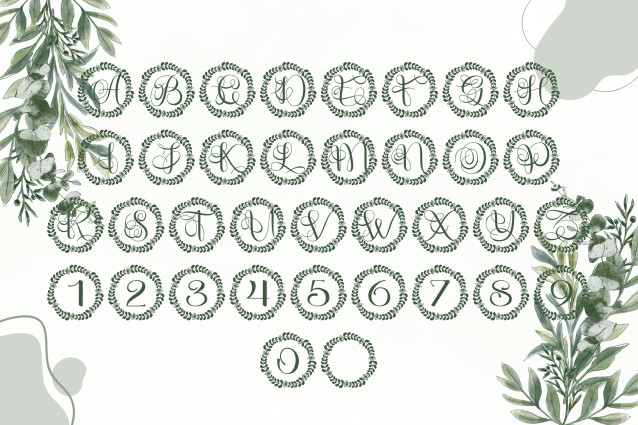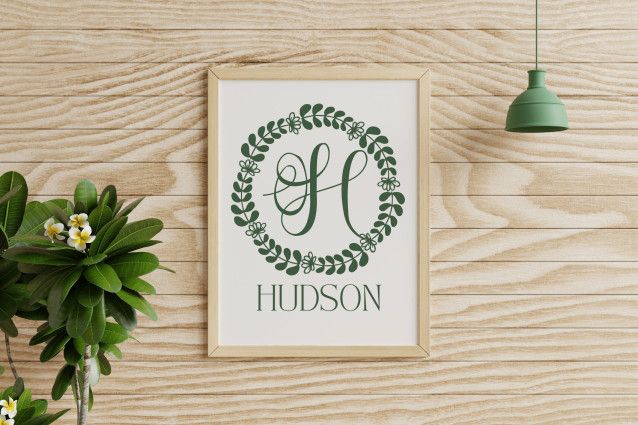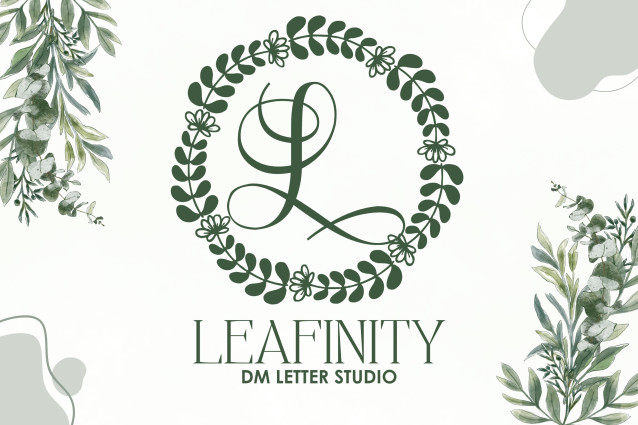
Leafinity Font
Leafinity Monogram Font is a refined serif monogram font wrapped in flowing botanical accents. Each uppercase character is adorned with graceful vine and leaf illustrations, creating an elegant and organic look perfect for nature-inspired designs, branding, wedding decor, or personalized gifts.